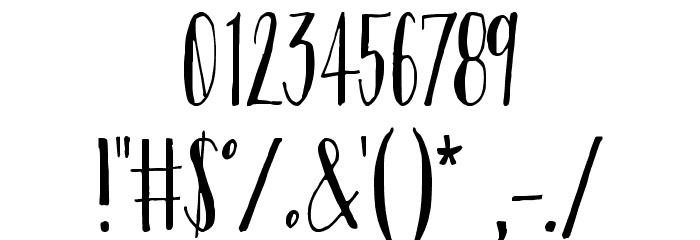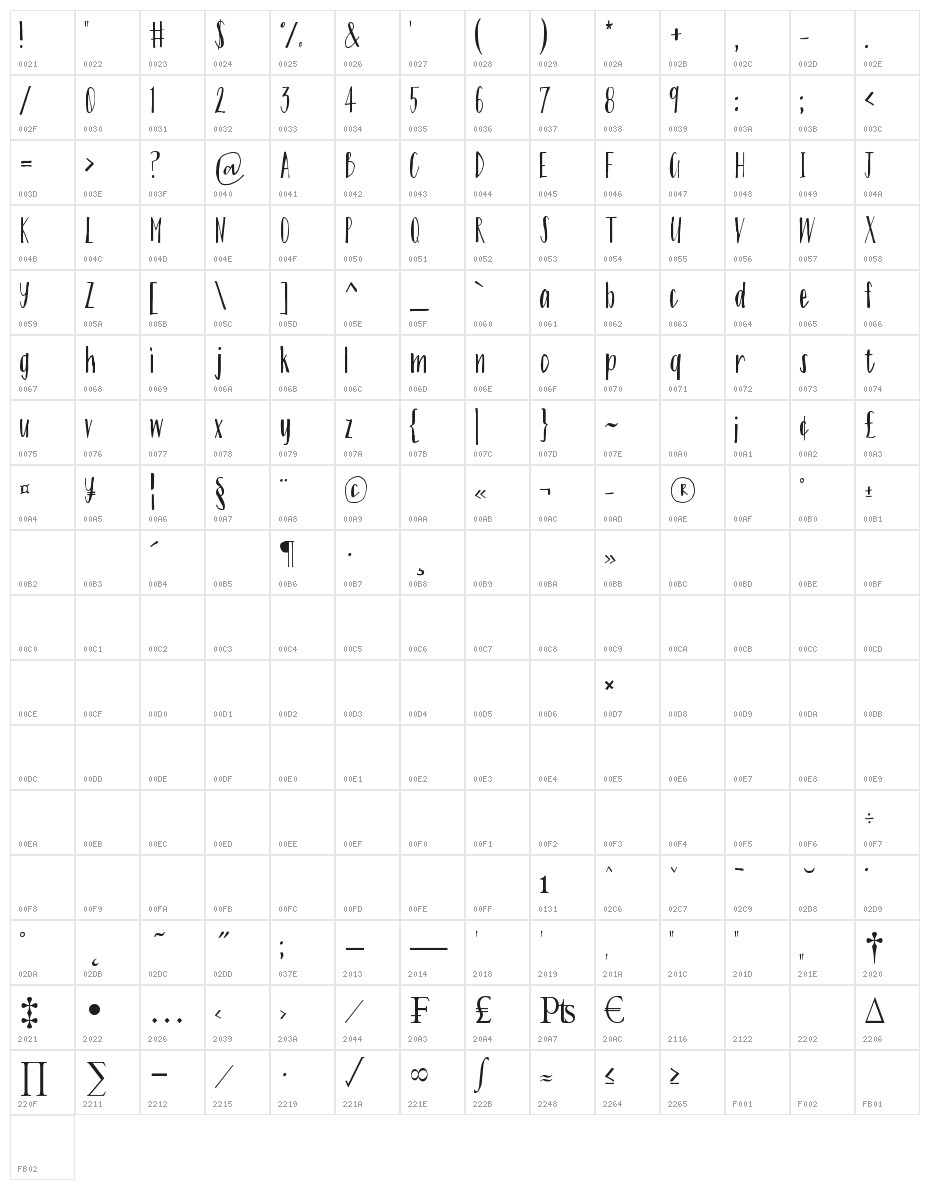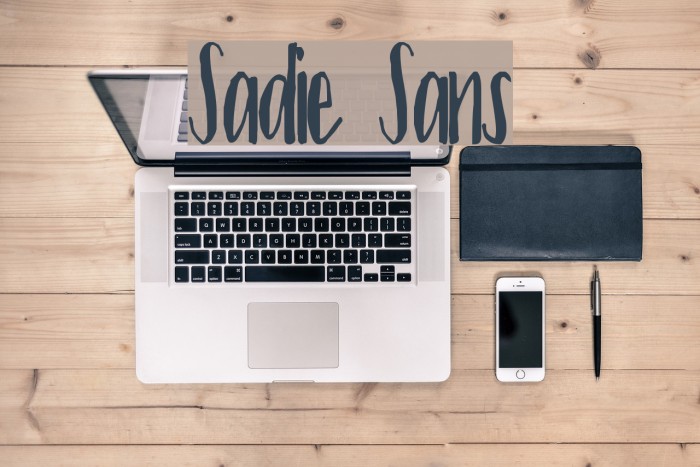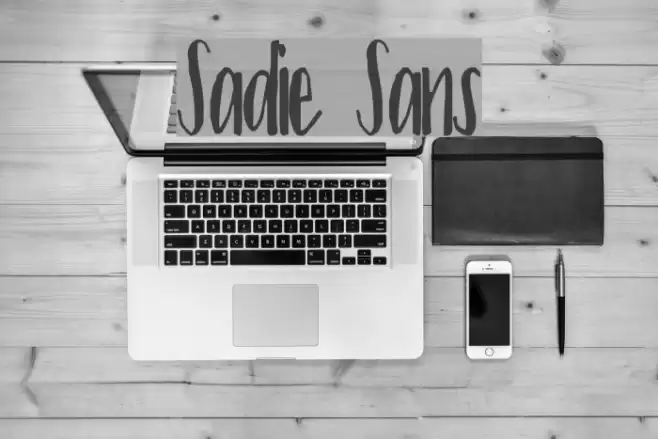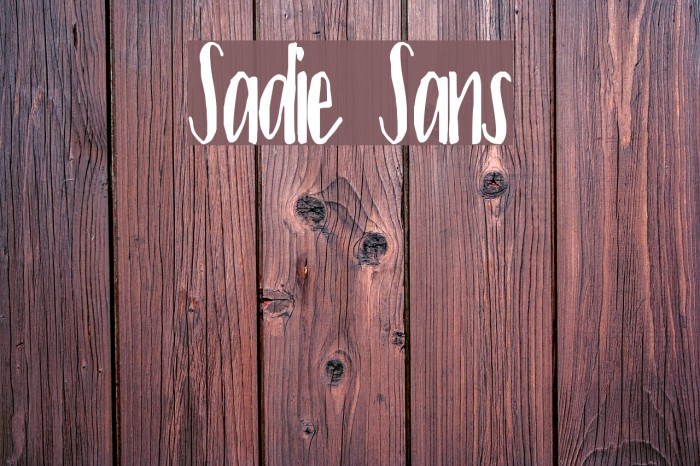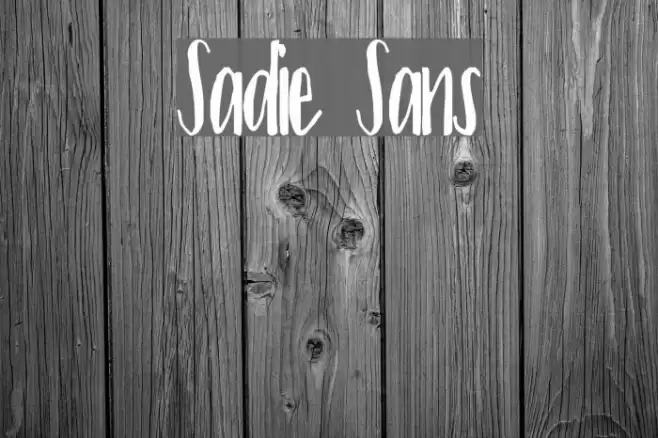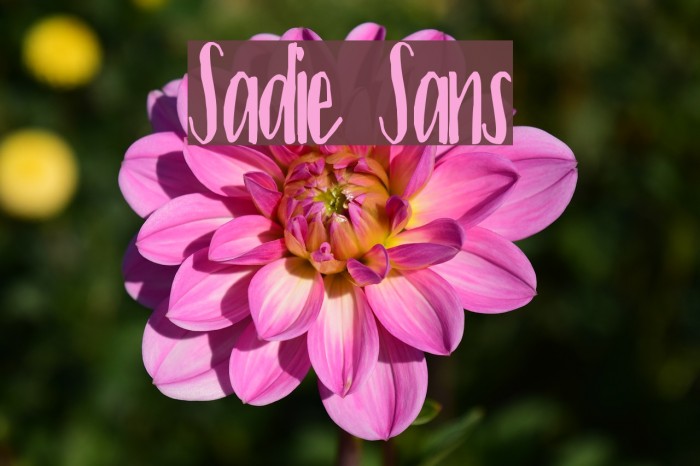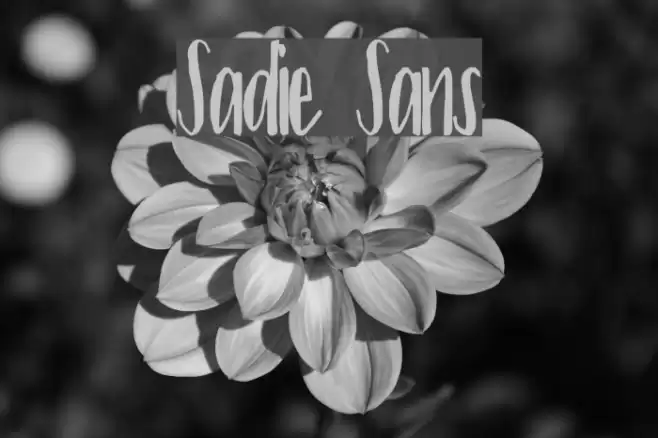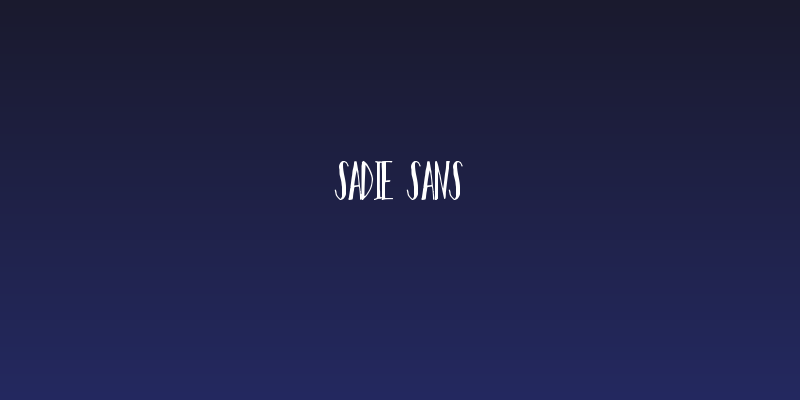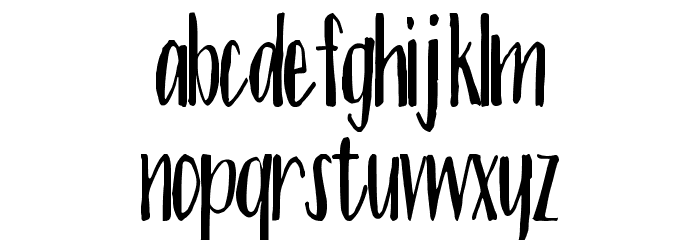
Sadie Sans Font
Sadie Sans Description
This font features a playful and whimsical style with tall, narrow letters that have a hand-drawn appearance. The strokes are uneven, adding a casual and informal feel. The uppercase letters are slightly taller than the lowercase, and the numbers maintain the same quirky style. Special characters are included, matching the overall aesthetic. The font's unique character makes it suitable for creative projects where a fun and approachable look is desired.
| Proposed Projects | Ideal for greeting cards, children's books, playful branding, and creative posters. |